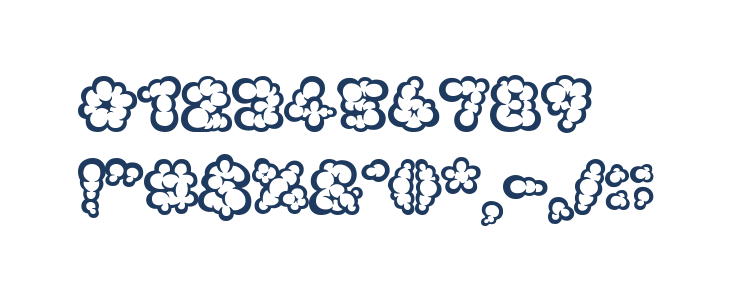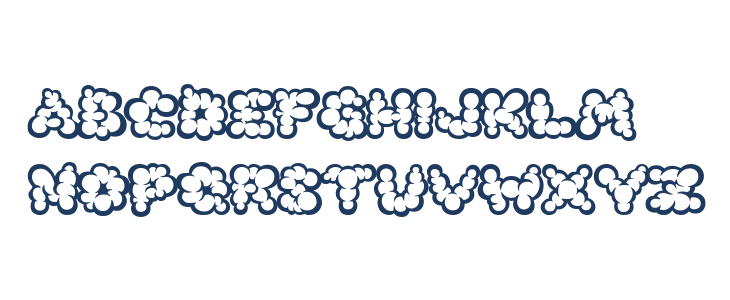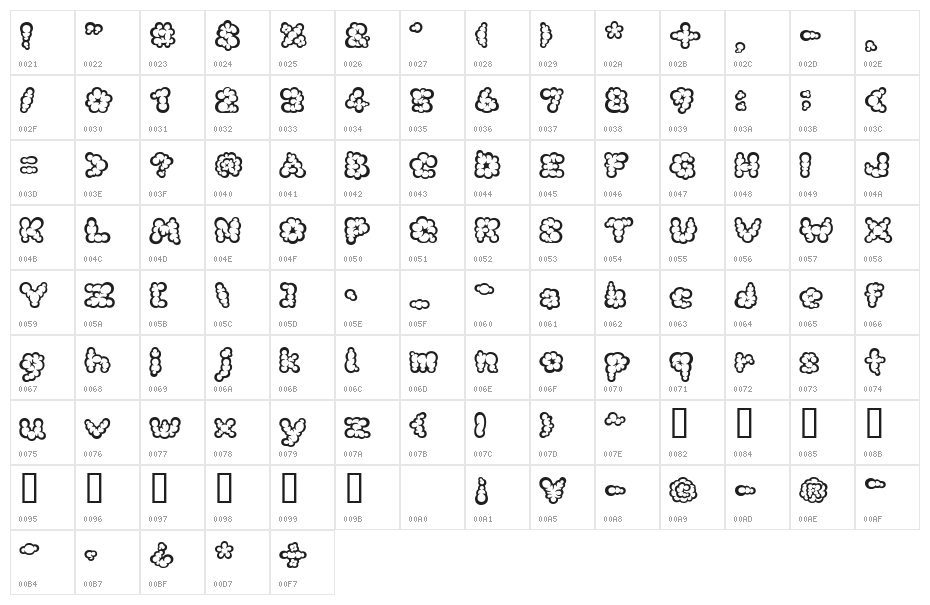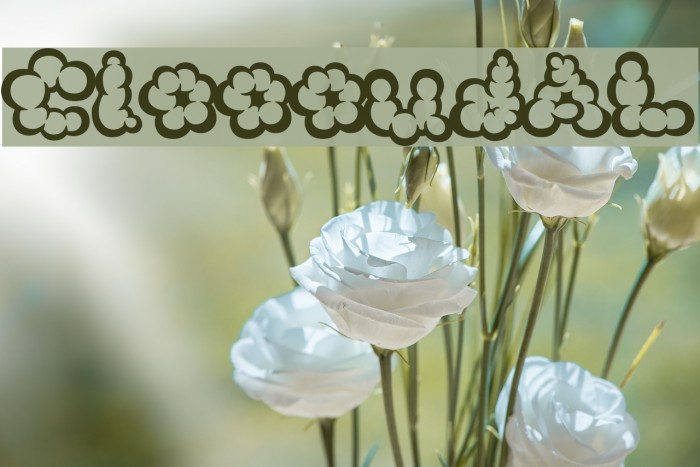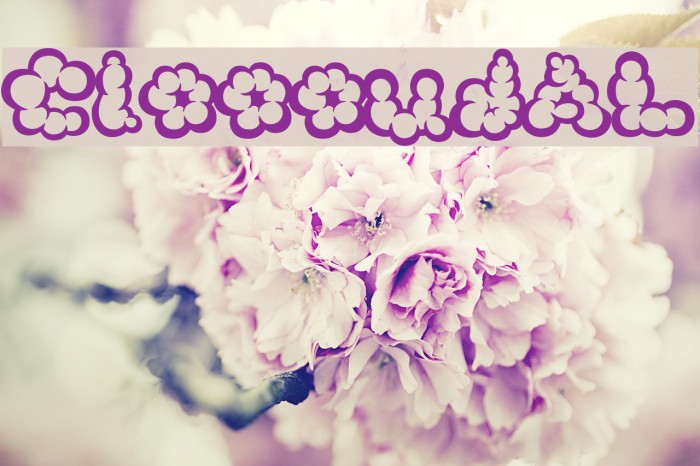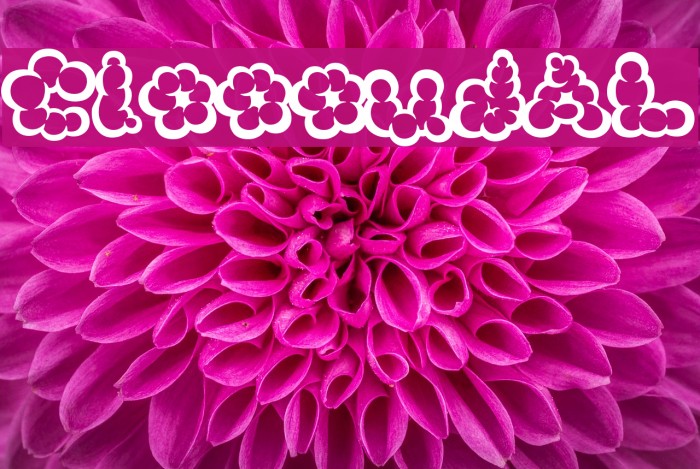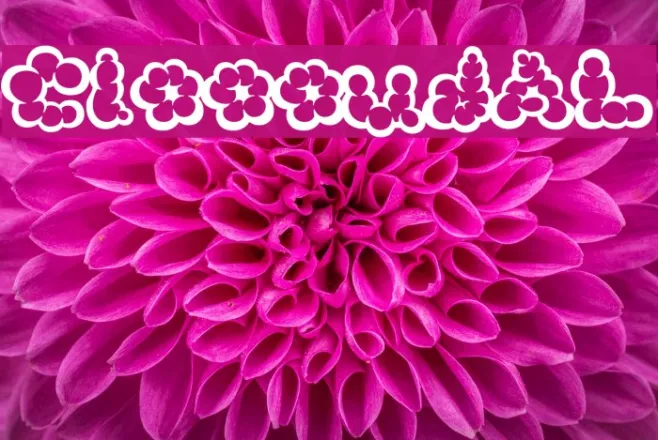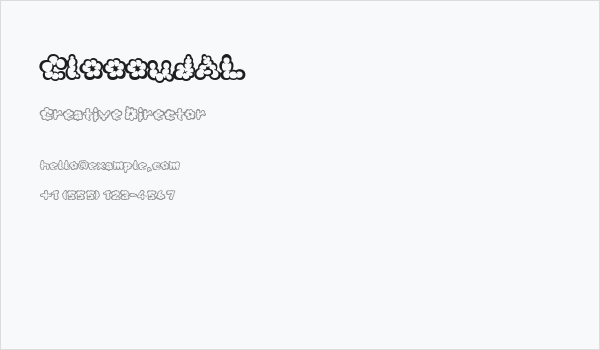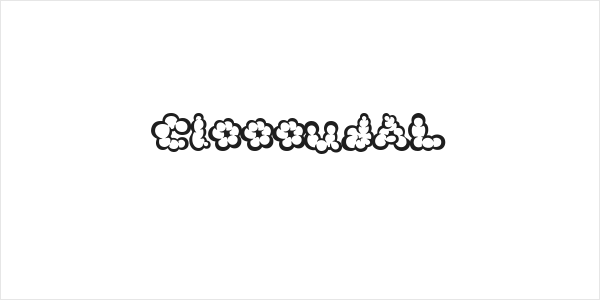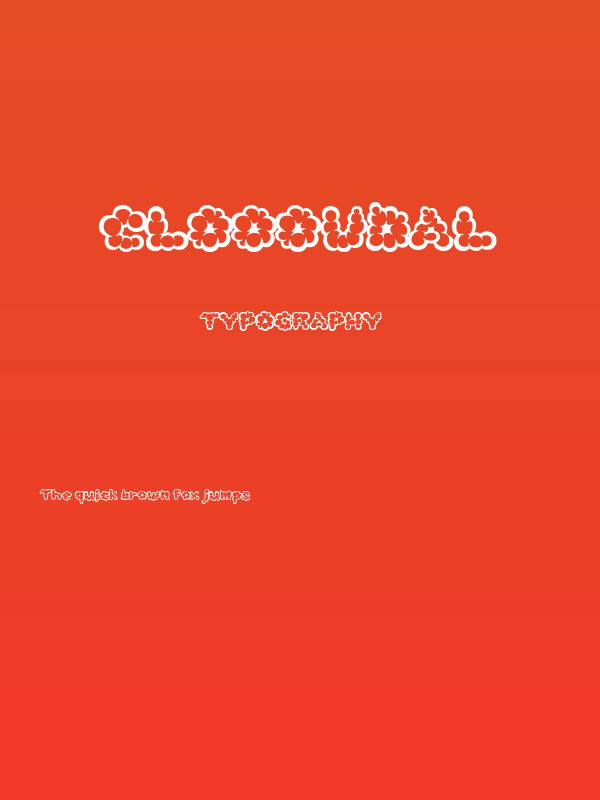
CloooudAL Font
CloooudAL Description
This playful and whimsical font is characterized by its fluffy, cloud-like appearance. Each letter and character is composed of rounded, bubbly shapes that resemble clusters of clouds, giving it a soft and airy feel. The font maintains a consistent thickness throughout, with a bold outline that enhances its visibility and adds a touch of definition. Despite its decorative nature, the characters are easily distinguishable, making it suitable for creative and informal applications. The overall style is fun and lighthearted, perfect for projects that require a touch of whimsy and imagination.
| Proposed Projects | Ideal for children's books, party invitations, playful branding, and creative posters. |